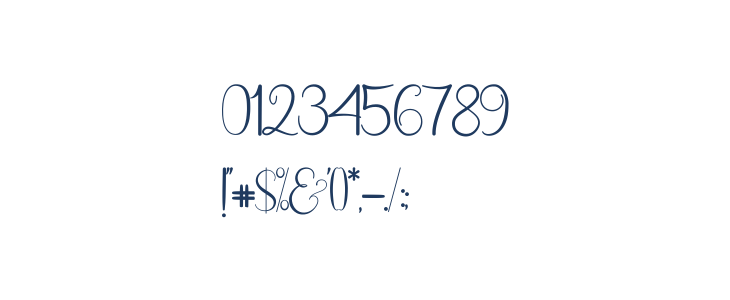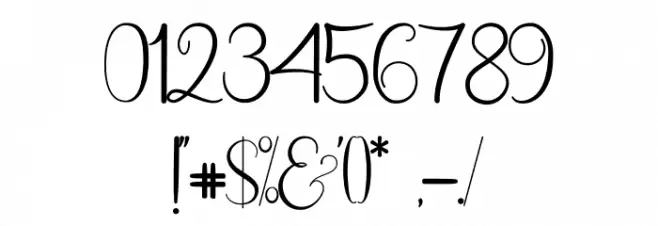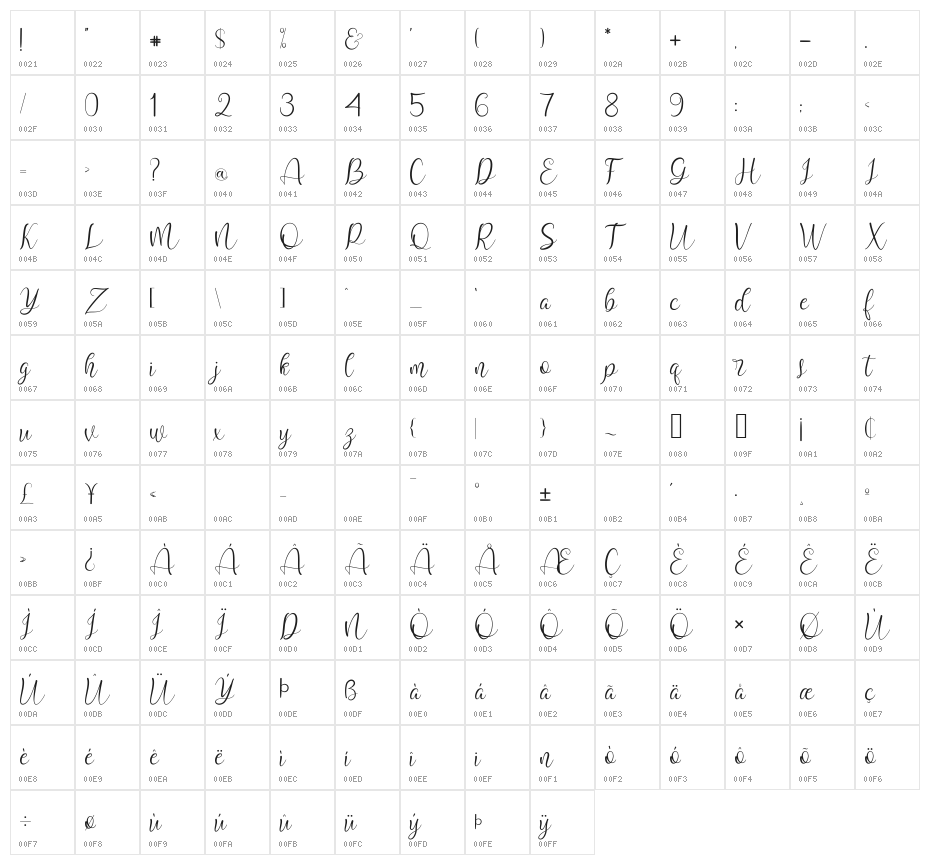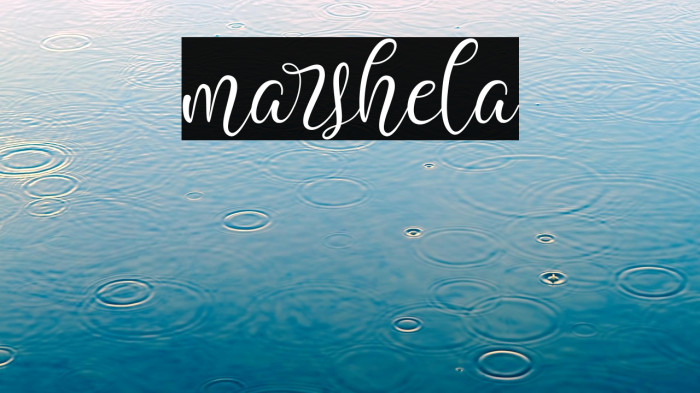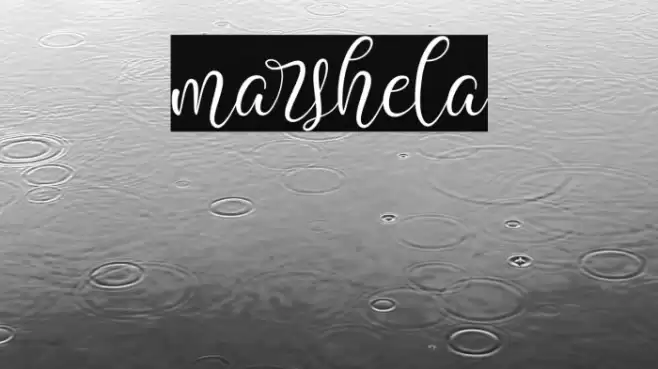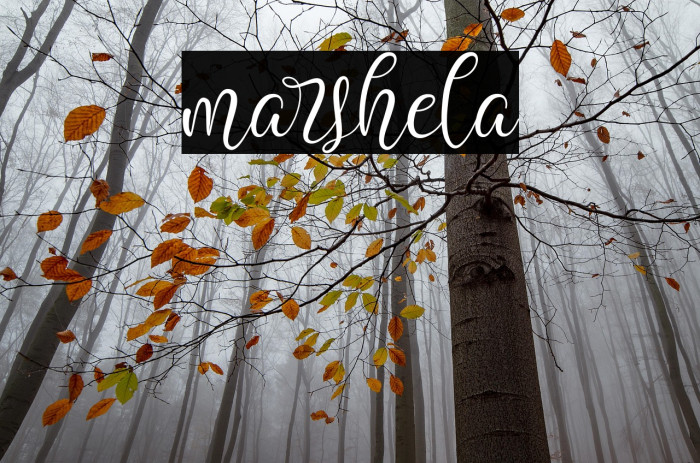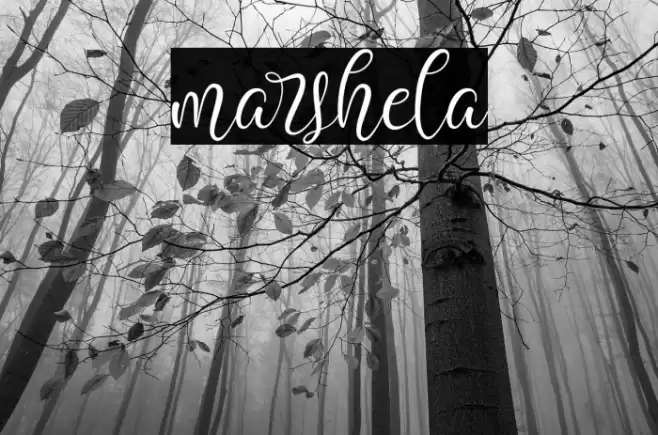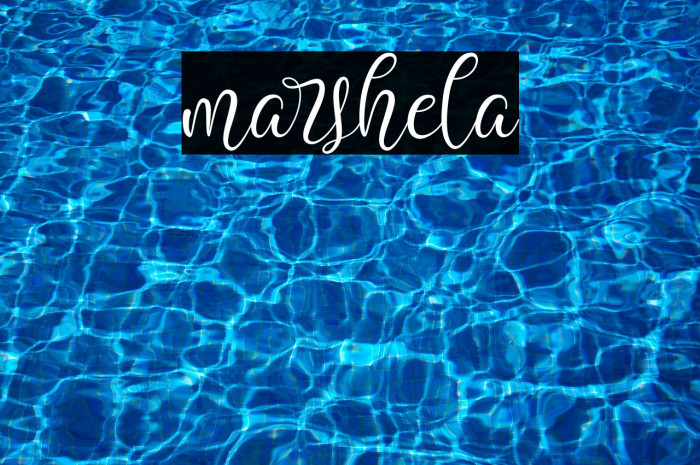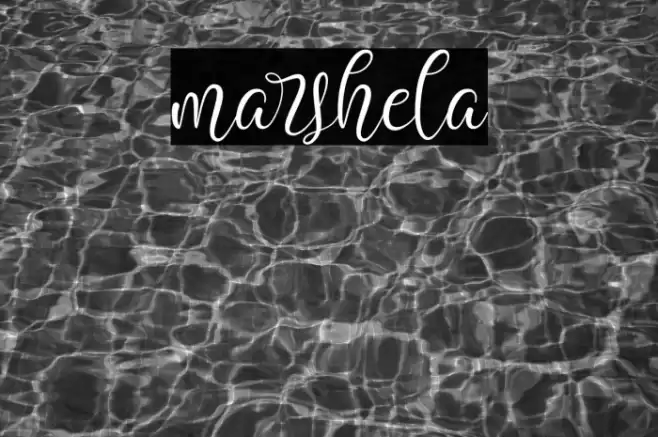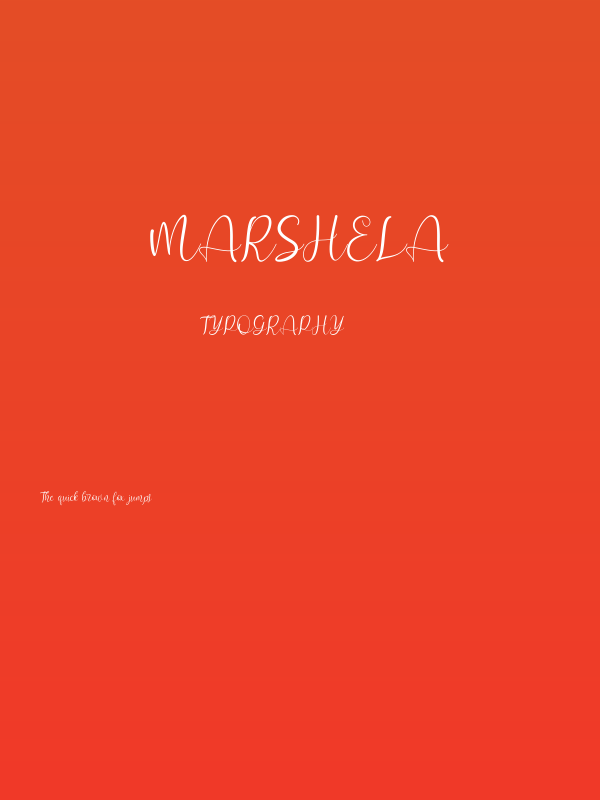
marshela Font
marshela Description
This font features an elegant and flowing script style, characterized by its smooth, cursive strokes and graceful curves. The uppercase letters are tall and slender, with a slight slant that adds a sense of movement and sophistication. The lowercase letters maintain a consistent flow, with rounded forms and delicate loops that enhance the font's overall fluidity. Numbers are designed with a similar elegance, featuring clean lines and balanced proportions. Special characters complement the style with their refined and stylish appearance, making this font suitable for a variety of creative applications.
Overall StyleElegant
Use CaseLogos, Invitations, Decorative text
Proposed ProjectsIdeal for wedding invitations, greeting cards, branding, and elegant logo designs.